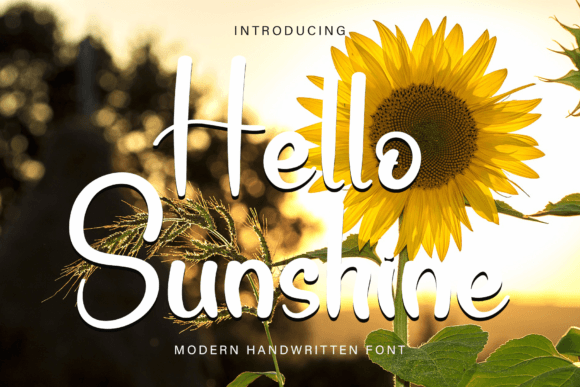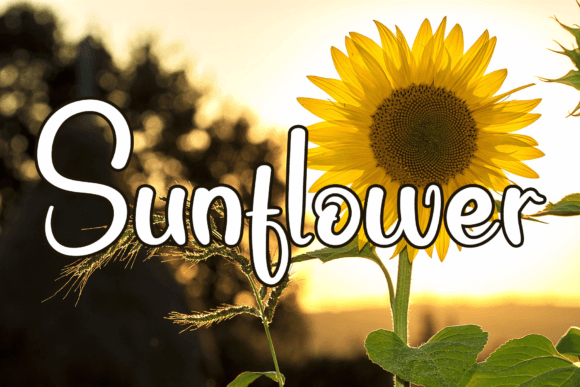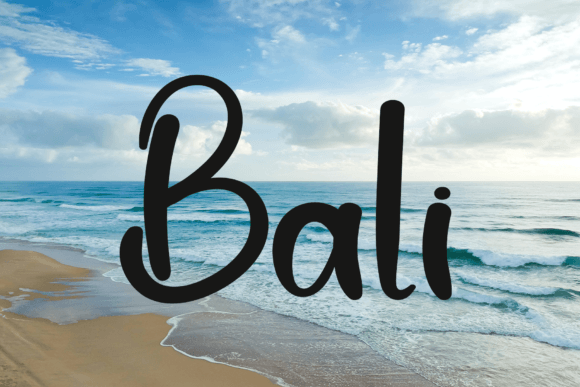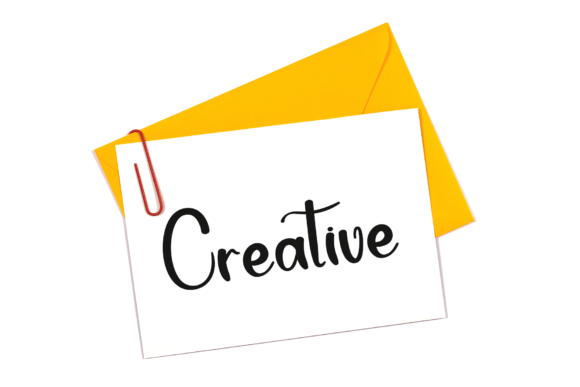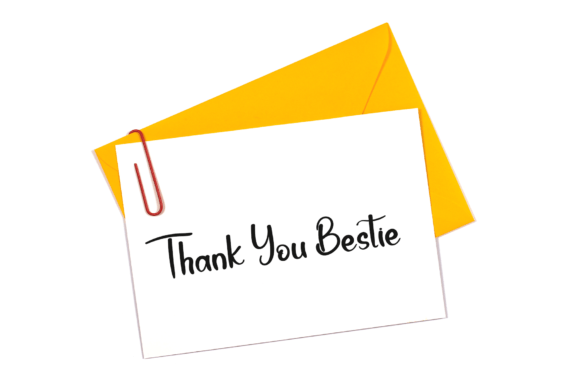
The Perfect Font for a Brighter Mood
Have you ever stumbled upon a font that instantly puts a smile on your face and makes you feel like anything is possible? That’s exactly what happens when I lay eyes on the Hello Sunshine Font. Its elegant curves and stylish flourishes radiate a cheerful vibe, making it the perfect addition to any creative project.
As a designer, I know how crucial it is to have a versatile font that can elevate any design. The Hello Sunshine Font is that game-changer. With its warm and playful personality, it’s perfect for adding a touch of whimsy to invitations, branding, and creative projects. Whether you’re a seasoned designer or just starting out, this font is sure to bring a ray of sunshine to your work.
Hello Sunshine Font Key Features
- Font Family: Hello Sunshine Font is a unique, hand-drawn font family designed to evoke a warm and sunny feel.
- Unique Characteristics: Hello Sunshine Font features a distinctive, hand-drawn style with intricate details and flourishes, making it perfect for adding a touch of whimsy to designs.
Hello Sunshine Font Review
I’ve had the chance to work with the Hello Sunshine Font, and I must say it’s a delightful addition to any design project. ✨ The font’s playful and optimistic vibe is perfect for creating a cheerful atmosphere, making it ideal for kids’ books, food labels, or even social media graphics. The bold and cursive styles offer a lot of flexibility, and the font is incredibly easy to read.
Here are some of the things that work well with the Hello Sunshine Font:
- Playful and optimistic vibe
- Bold and cursive styles for flexibility
- Easy to read
- Perfect for kids’ books, food labels, and social media graphics
- May not be suitable for formal or professional projects
- Not ideal for large blocks of text
- Some letters may not be easily legible at small font sizes
Overall, I think the Hello Sunshine Font is a great addition to any designer’s toolkit. It’s perfect for projects that require a lighthearted and cheerful touch. While it may not be suitable for every project, it’s definitely worth considering for the right type of design.
Introduction to Hello Sunshine Font
Tips for Getting the Most Out of Hello Sunshine Font
To get the most out of the Hello Sunshine Font, try the following:
- Use it for titles and headings to add a pop of color to your design.
- Combine it with other fonts to create a unique and playful font combination.
- Experiment with different font sizes and colors to achieve the desired effect.
The Hello Sunshine Font is perfect for:
- Creating playful and eye-catching titles and headings. Alternatives to Hello Sunshine Font
- Use Hello Sunshine Font to write the title “Sunshine Journal” in bold letters across the cover.
- Choose a vibrant yellow or orange background to match the font’s playful vibe.
- Combine the font with colorful illustrations or doodles to add visual interest.
- Consider adding a ribbon or sticker to make the journal more personalized.
- Use Hello Sunshine Font to write the label’s text, such as the name of the drink or a motivational message.
- Pair the font with bright colors and fun illustrations to match the playful vibe.
Project Ideas with Hello Sunshine Font
Project 1: Sunshine Journal Cover
Create a cheerful journal cover using Hello Sunshine Font for the title and a bright background.
Project 2: Customized Water Bottle Labels
Design personalized water bottle labels using Hello Sunshine Font to add a touch of whimsy to your hydration routine.
Project 3: Instagram Quote Graphics
Create visually appealing Instagram quote graphics using Hello Sunshine Font to spread positivity and inspiration.